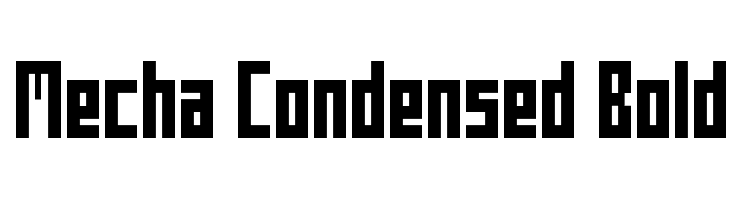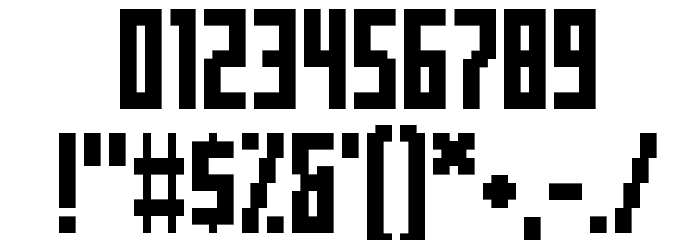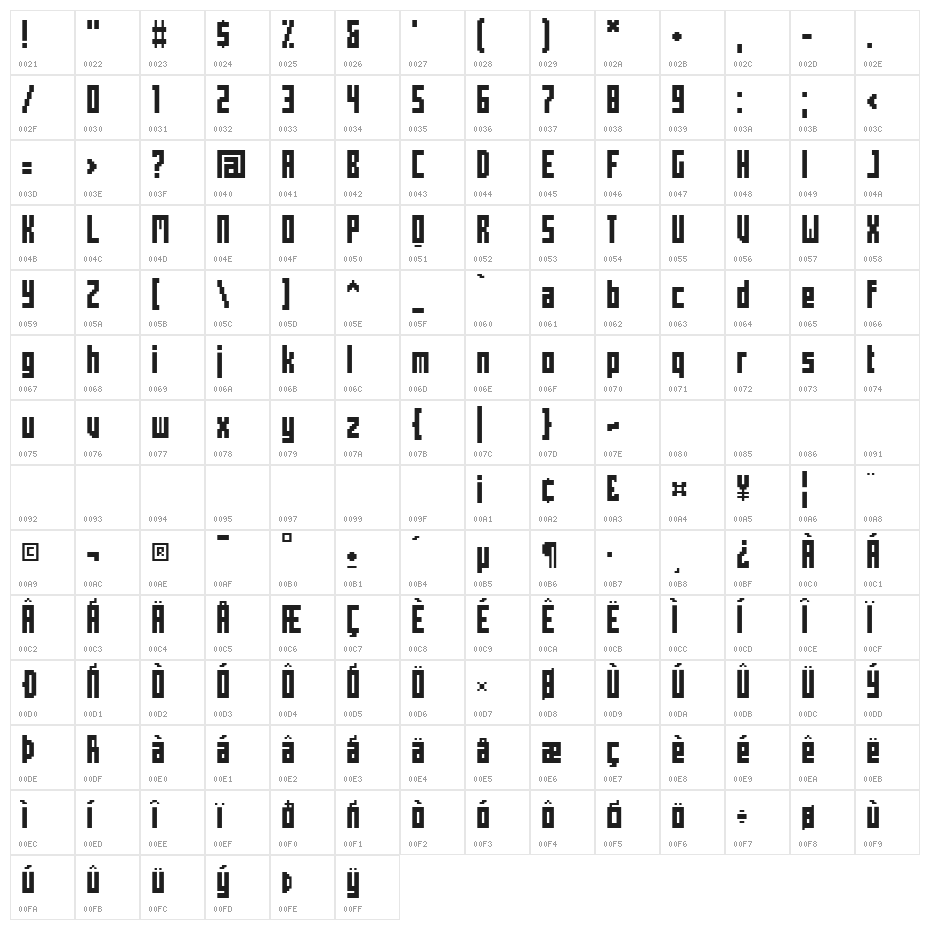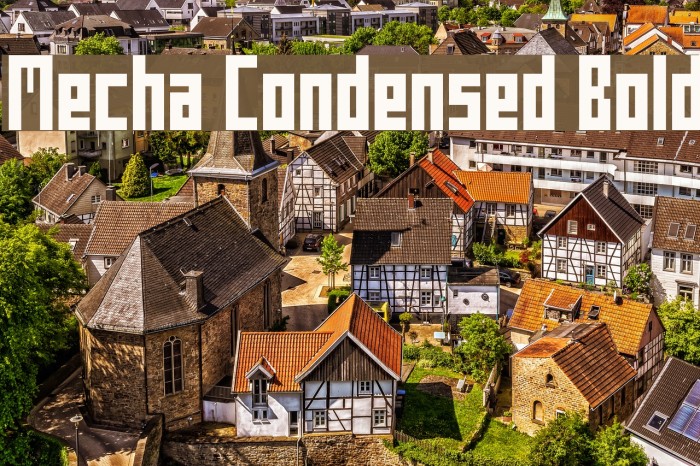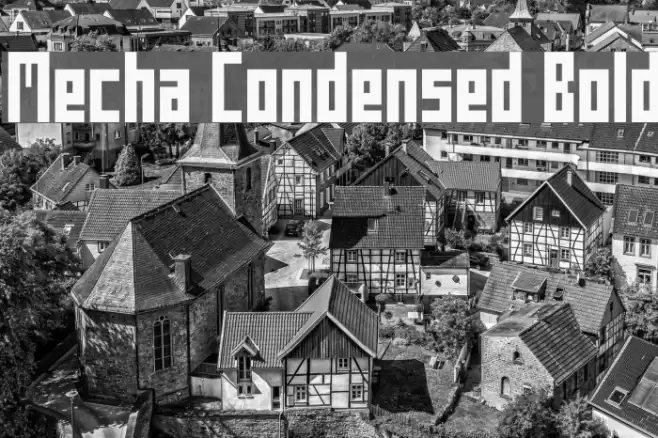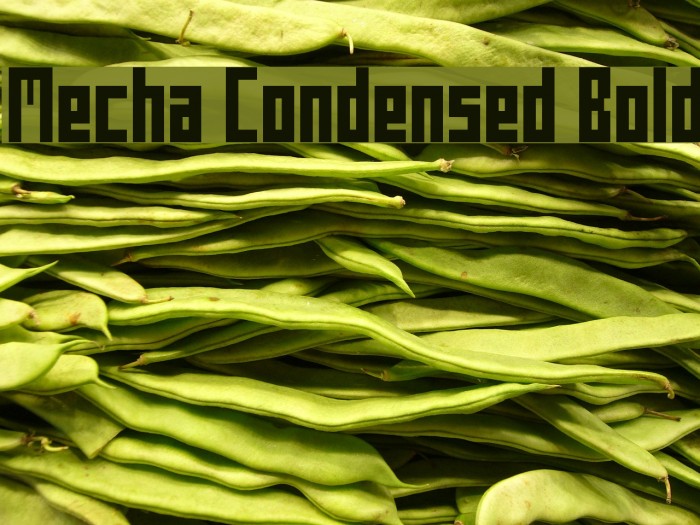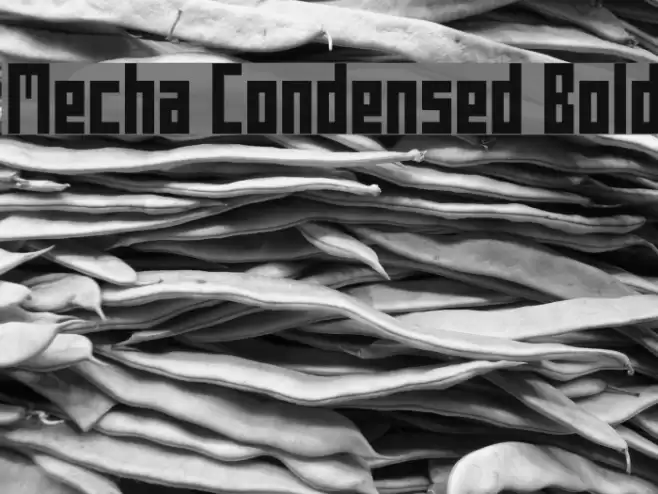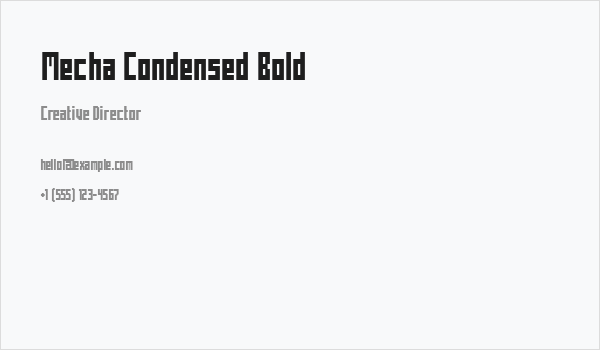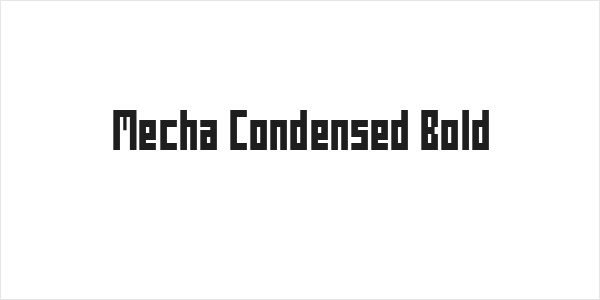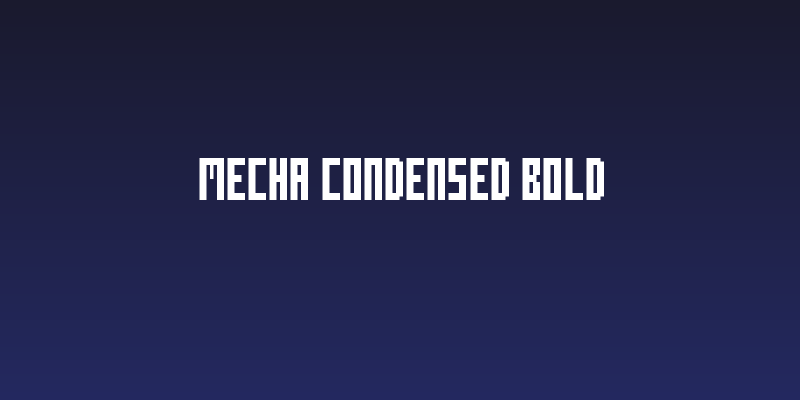
Mecha Condensed Bold Font
Mecha Condensed Bold Description
This font features a bold, condensed style with a distinctly mechanical and futuristic appearance. The characters are blocky and geometric, with sharp angles and straight lines that convey a sense of strength and modernity. The uppercase and lowercase letters maintain a consistent height, emphasizing uniformity and precision. Numbers and special characters follow the same design principles, ensuring a cohesive look across all elements. The font's design is reminiscent of digital or robotic themes, making it ideal for projects that require a tech-savvy or industrial feel.
| Proposed Projects | Ideal for technology branding, video game titles, sci-fi posters, and industrial-themed designs. |